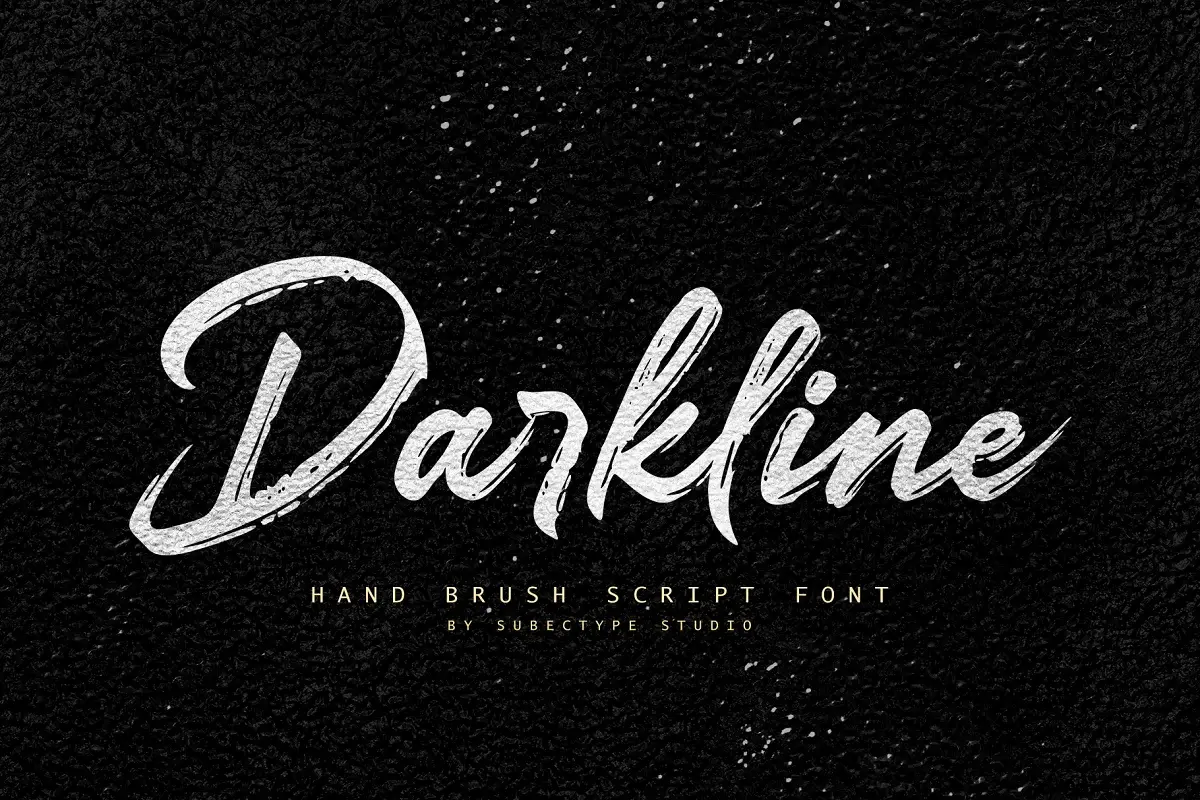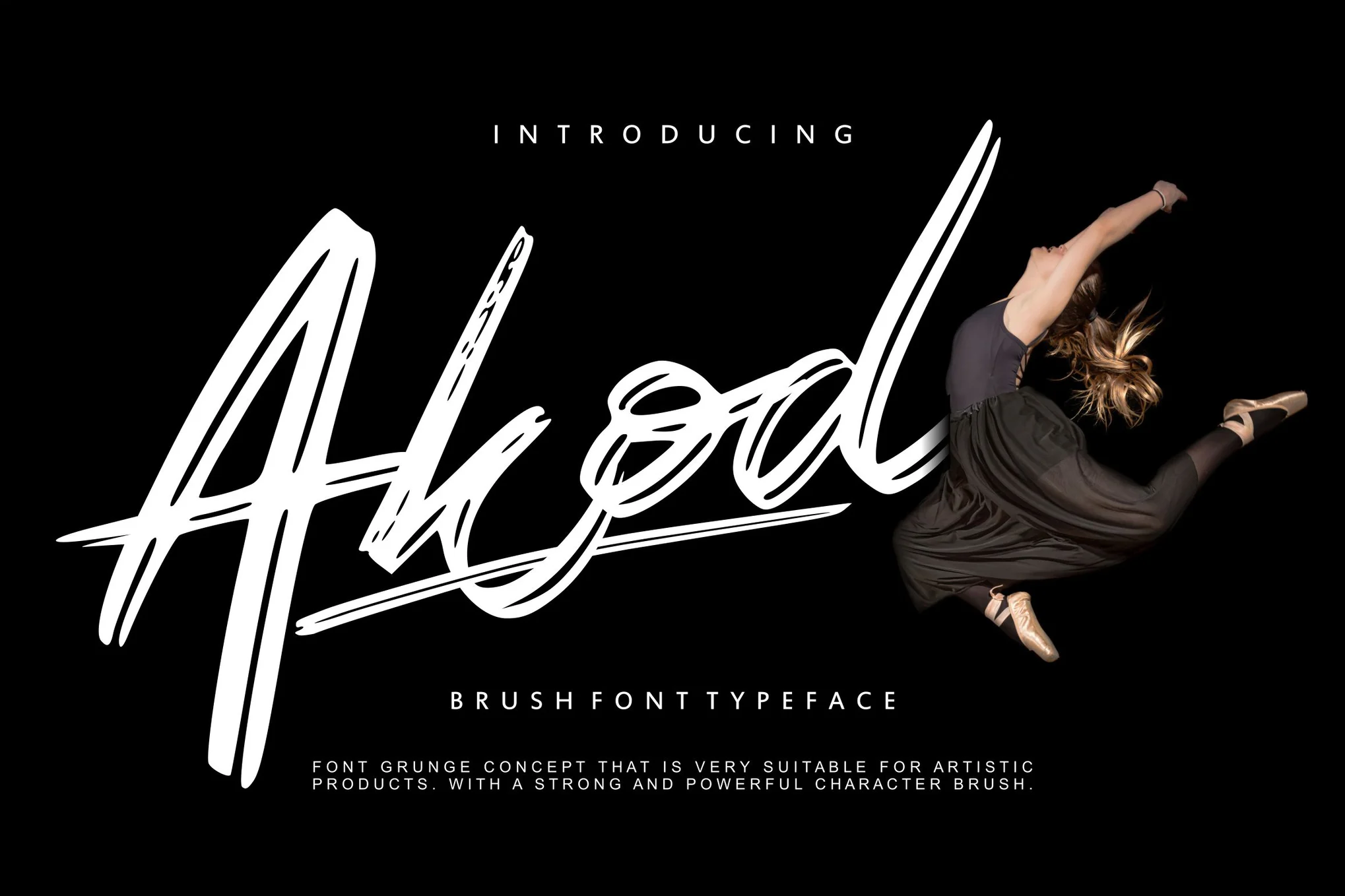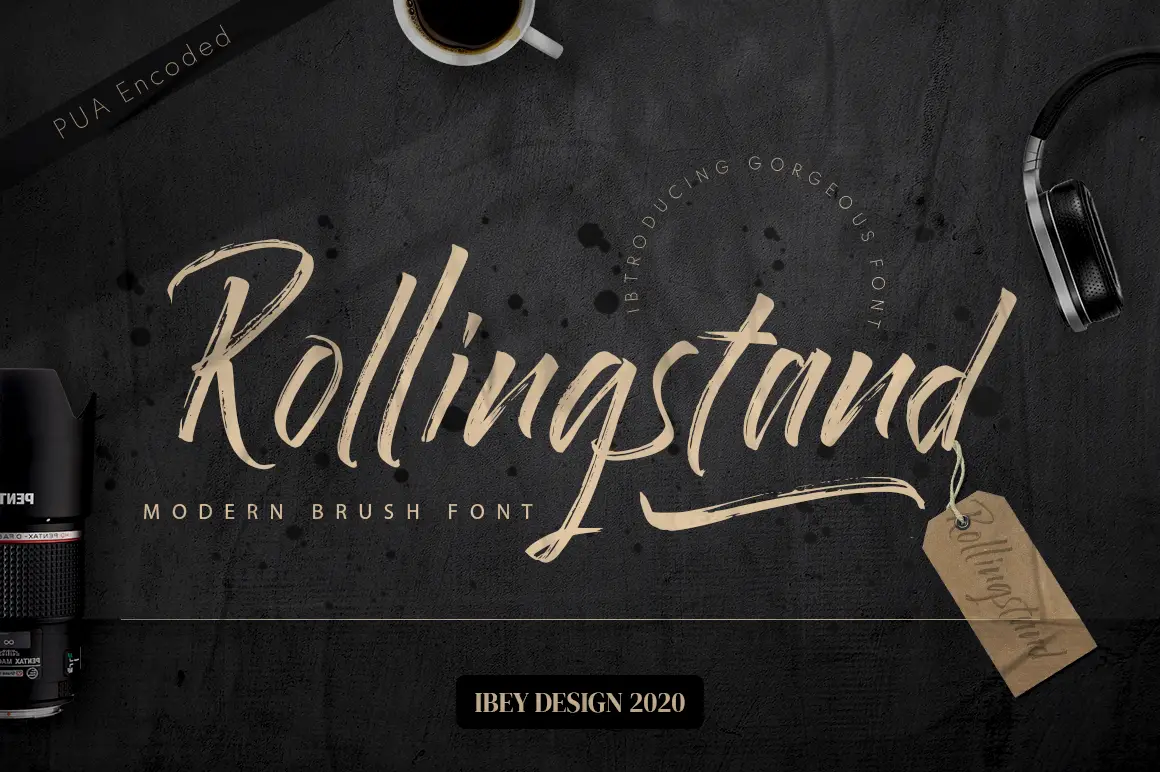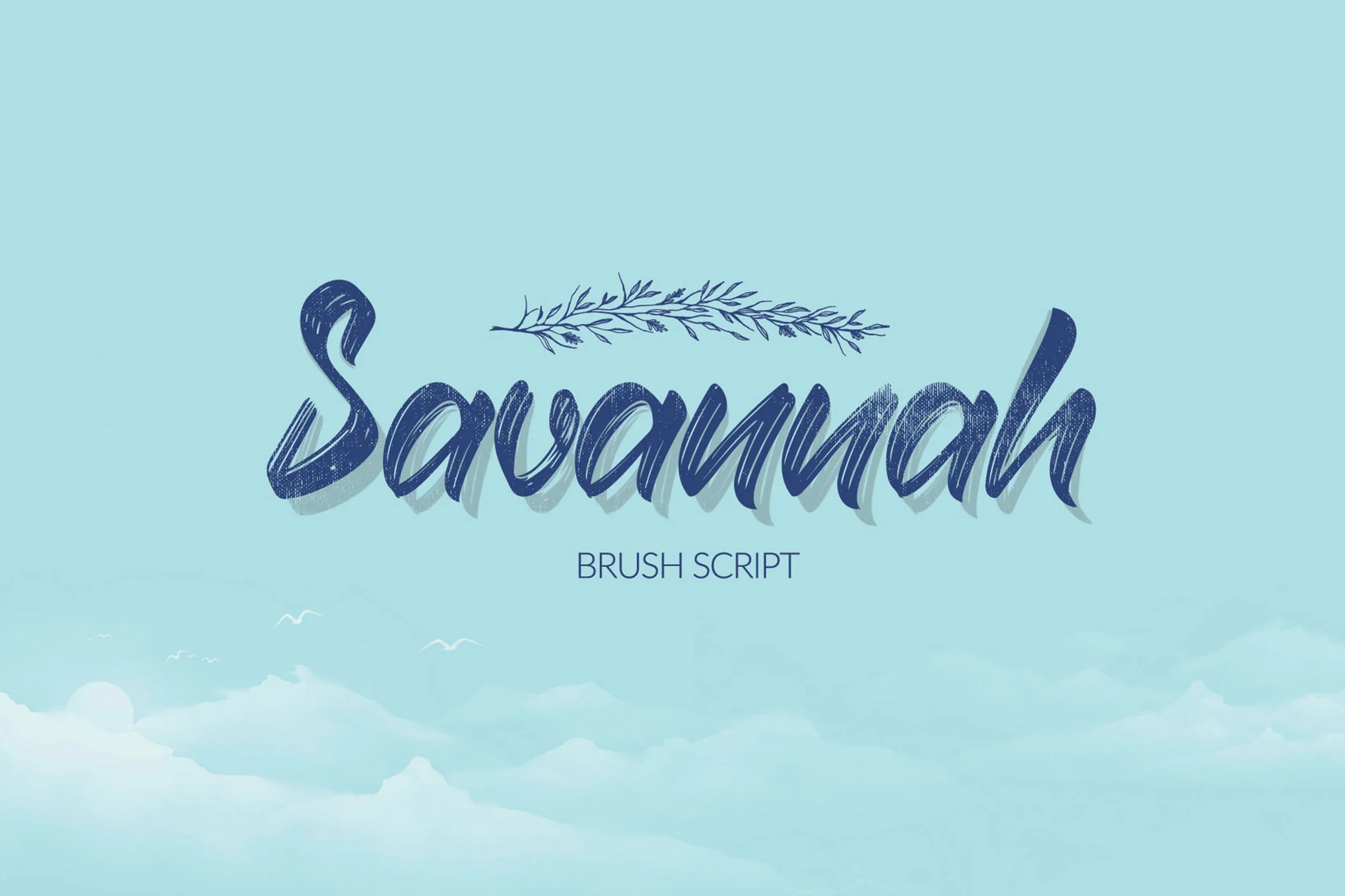
23+ Best Brush Script Fonts of 2024 : Elevate Your Designs with These Must-Have Picks
Best Brush Script Fonts
Best Brush Script Fonts is a beautiful typeface with a natural and authentic brush script look. Best Brush Script Fonts are perfect for branding, invitations, quotes, social media posts, product packaging, headers, and more.
1. Dastyn – Brush Script Font
Dastyn – Brush Script Font
Dastyn is a beautiful brush script font with an imperfect, hand-drawn look. It’s perfect for invitations, cards, quotes, posters, branding, logos, and more!
If you’re looking for a unique, hand-drawn brush script font, check out Dastyn!
2. Rollingstand- Brush Script Font
Rollingstand brush script font
Rollingstand Font
Rollingstand brush script font is a typeface created by designer Ibey Design. The font has a vintage-inspired design and features irregular strokes that give it a unique hand-drawn look. Rollingstand brush script font is perfect for creating logos, handwritten quotes, invitations, and other creative designs.
3. Oh Livey Brush Script Font
Oh Livey brush script font
Oh Livey Brush Script Font is a type of script font that combines the liveliness of a brush script with the readability of a sans serif. The result is a fun and playful font perfect for a wide range of projects.
There are endless possibilities for what you can design with Oh Livey brush script fonts. Some popular uses include:
• Greeting cards
• Invitations
• Logos
• Business cards
• Website headers
4. Savannah
Savannah Brush Script Font
Savannah Brush Script Font is a beautiful and stylish handwritten font. It has a unique brush script look making it perfect for any creative project! Download it today and add a touch of personality to your next design!
Savannah brush script font is perfect for any project that needs a handwritten touch. Use it for invitations, cards, branding, and more.
5. Faith & Glory Brush Script Font
Faith and Glory brush script font
Faith & Glory Brush Script Font is a beautiful, handwritten brush script font. The font includes a full set of upper and lowercase characters, as well as numbers and punctuation. Faith & Glory Brush Script Font is perfect for invitations, cards, branding, logos, and more.
6. Blaze Spirit Brush Script Font
blaze spirit brush script font
Blaze Spirit Brush Script Font is a beautiful font perfect for creating stunning headlines and logos. The Blaze Spirit Brush Script Font has a unique style that is both stylish and modern. The Blaze Spirit Brush Script Font is perfect for any project that requires a touch of class.
7. Superion Brush Script Font
Superion Brush Script Font is a popular font used by many designers. It is a handwritten font that has a unique and stylish look. Superion Brush Script Font is perfect for projects that need a handwritten touch. This font is available in both regular and bold weights. Superion Brush Script Font is an excellent choice for any project requiring stylish regular, and bold weights.
8. South Coast Brush Font
south coast brush font
South Coast Brush Font is a beautiful handwritten font with a natural and stylish flow. It is perfect for branding, wedding invitations, signatures, logos, quotes, and more!
9. Akod Brush Script Font
Akod Brush Script Font
Akod Brush Script Font is a calligraphy font family with a unique and stylish design. The fonts include regular, bold, italic, and brush styles. Akod Brush Script Font is perfect for any creative project, including branding, logos, invitations, and more.
Akod Brush Script is an excellent choice for creative projects that require a touch of elegance and personality. You can use it for invitations, greeting cards, logos, and branding. Akod Brush Script is also a perfect choice for any project that requires a handwritten look.